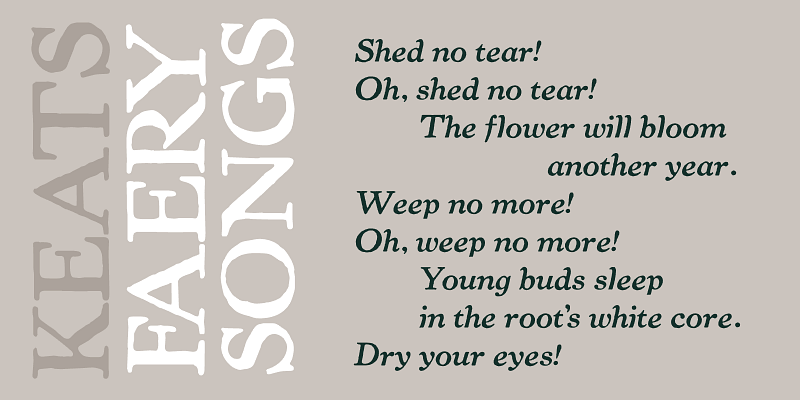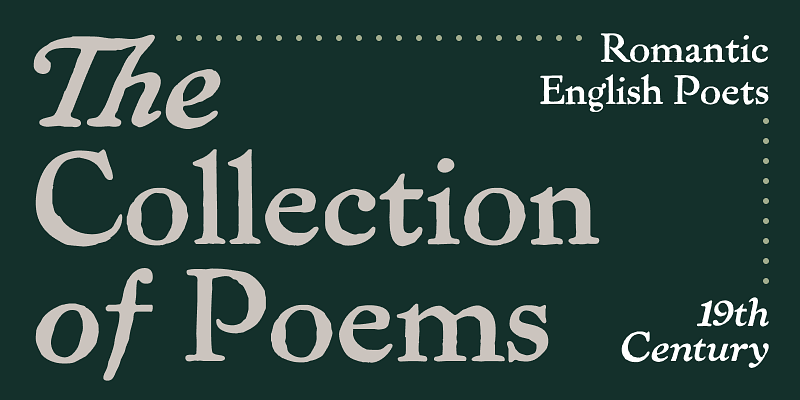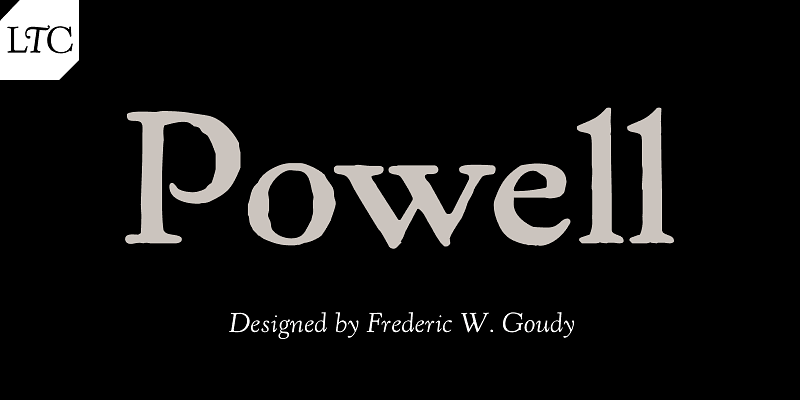
Frederic Goudy designed Powell for a “Mr. Powell” of the Mandel Brothers Chicago department store in 1907. This face bears resemblance to Pabst but with a larger lowercase and shorter descenders. This face resembles the copy of Goudy Script lettering released by Inland Foundry in 1902. The naming of the font Hearst (P22 Kane) was the cause of some controversy. Powell was Goudy’s reclaiming of his own lettering design. The italic was designed by the Lanston Drawing office.